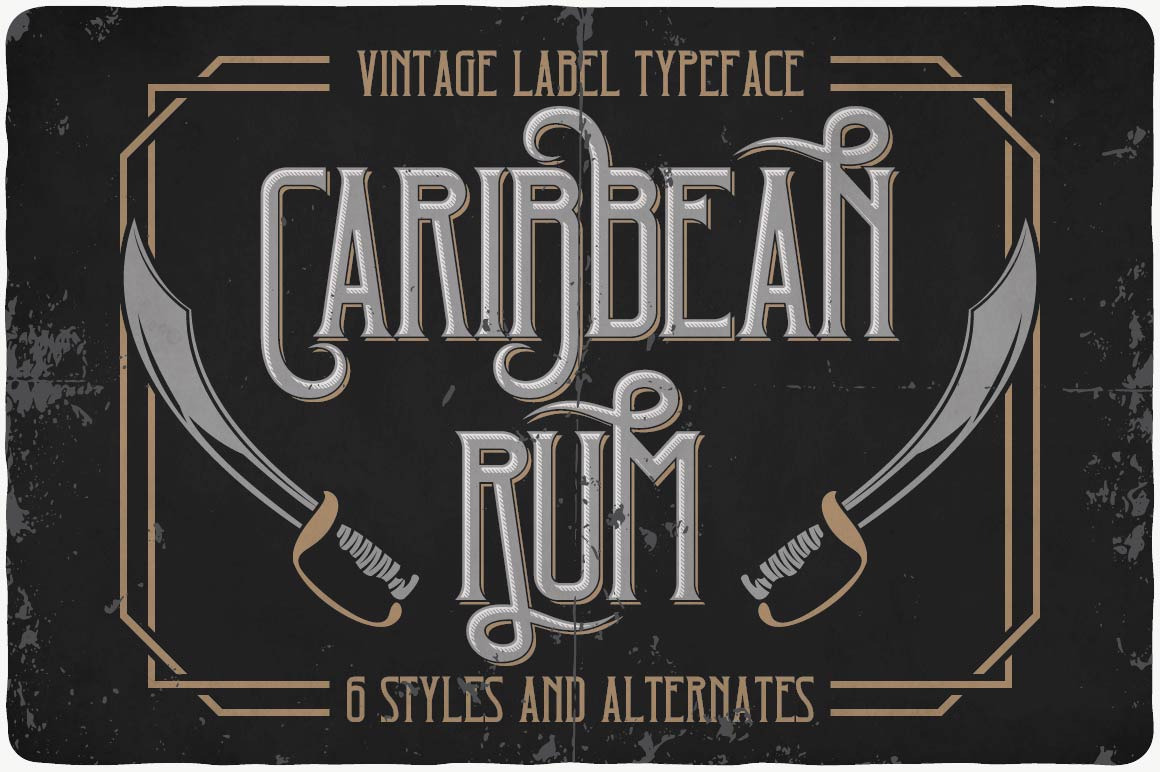
Caribbean Rum Font
Hi everyone! I'm glad to Introduce my new vintage look label typeface named "Caribbean Rum". This typeface includes six styles and alternates characters, for sample look at second preview. With these styles you can made your own, unique, vintage look badges, labels, posters, t-shirts or anything other designs! I hope you will enjoy!